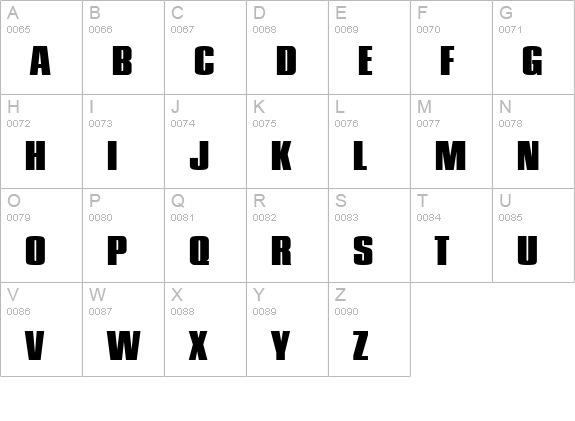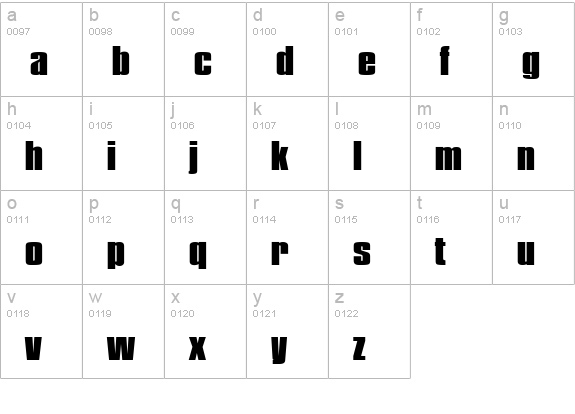
PledgeBlack Regular is the standard, neutral variant in the PledgeBlack typeface family \xE2\x80\x94 well suited to general body text, paragraphs, and standard typographic work.
PledgeBlack Regular font is a sleek and modern typeface that exudes confidence and sophistication. With its bold and clean lines, this font is perfect for making a statement in your designs. Whether you're creating a striking logo, eye-catching headlines, or impactful branding materials, PledgeBlack Regular is sure to leave a lasting impression. The best part? PledgeBlack Regular font is available for free download at FontsMarket.com. This means you can easily access this stylish font and incorporate it into your projects without any cost. Don't miss out on this opportunity to elevate your designs with the timeless elegance of PledgeBlack Regular font. Download it now and start creating stunning visuals that stand out from the crowd.